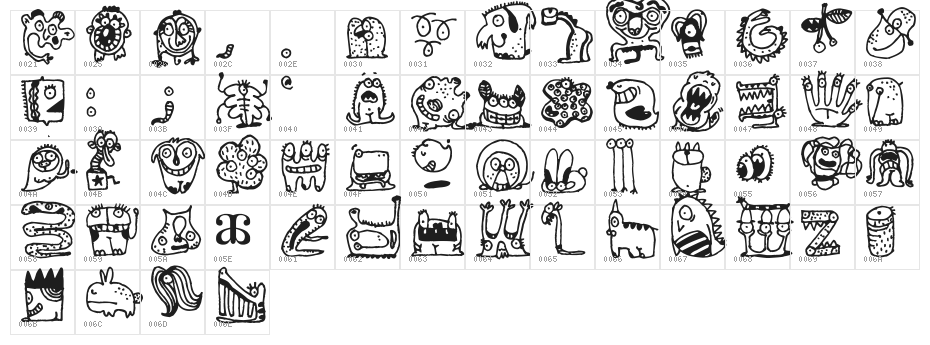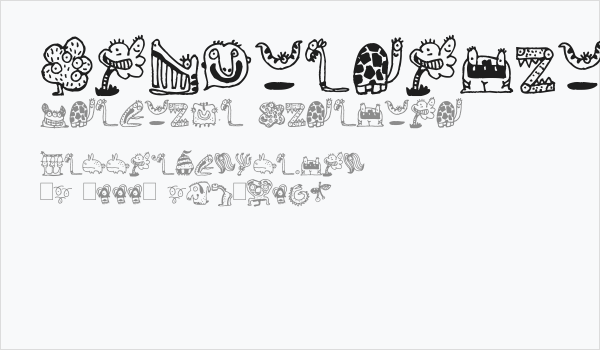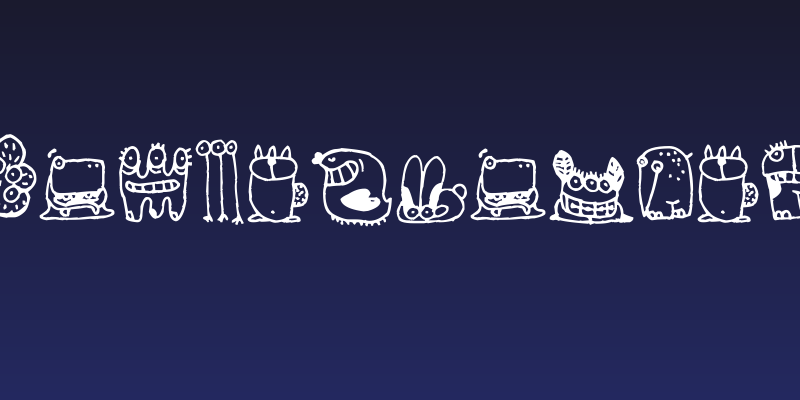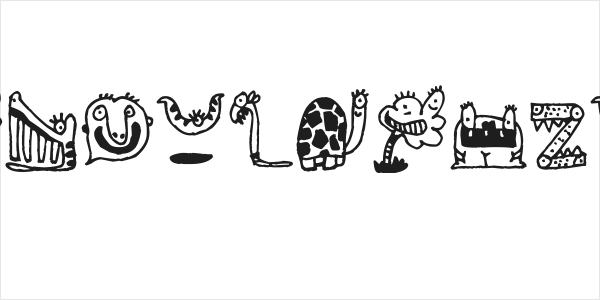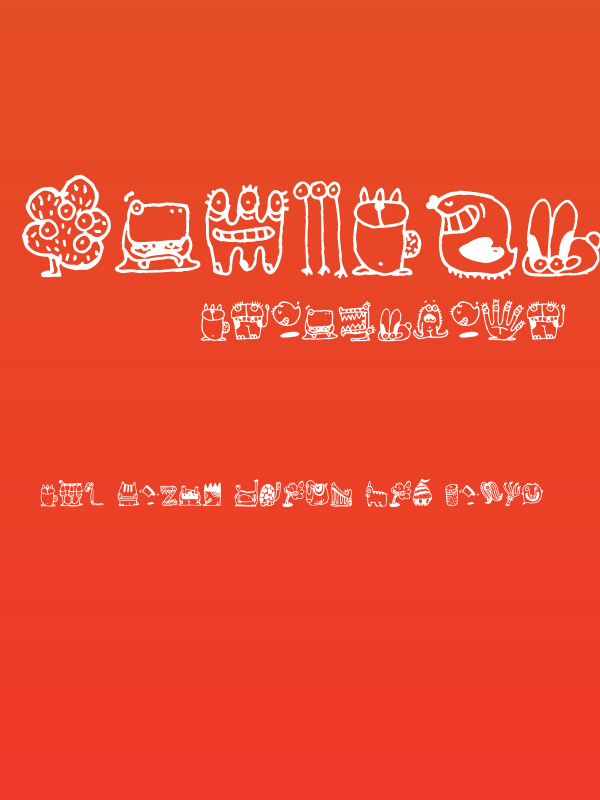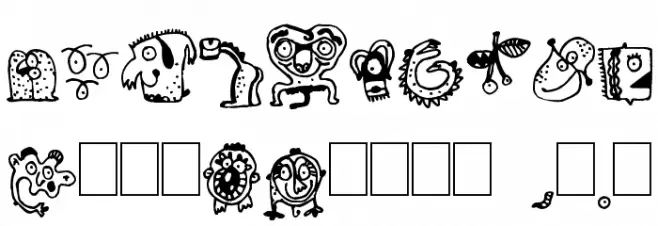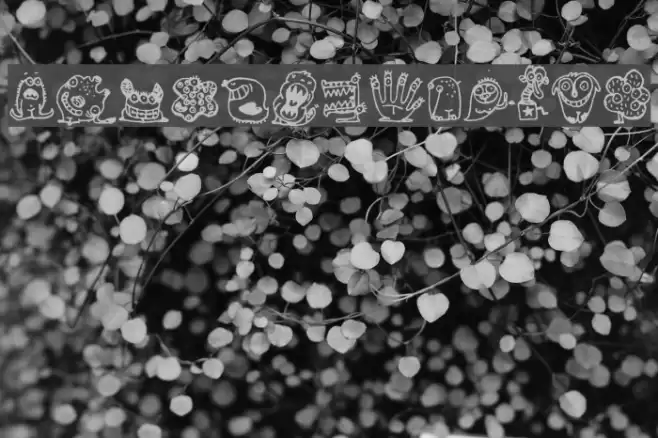
Monsterocity Font
Monsterocity Description
This font is a playful and whimsical collection of characters, each designed with a unique monster-like appearance. The letters and numbers are creatively illustrated, resembling various quirky creatures with exaggerated features such as eyes, teeth, and limbs. The style is highly decorative, making it ideal for projects that require a fun and imaginative touch. The characters are bold and cartoonish, with a hand-drawn feel that adds to their charm. This font is not suitable for formal text but excels in adding personality and humor to creative projects.
| Use Case | Logos, Headlines, Posters |
| Proposed Projects | Ideal for children's books, playful posters, party invitations, and any project needing a fun, imaginative touch. |